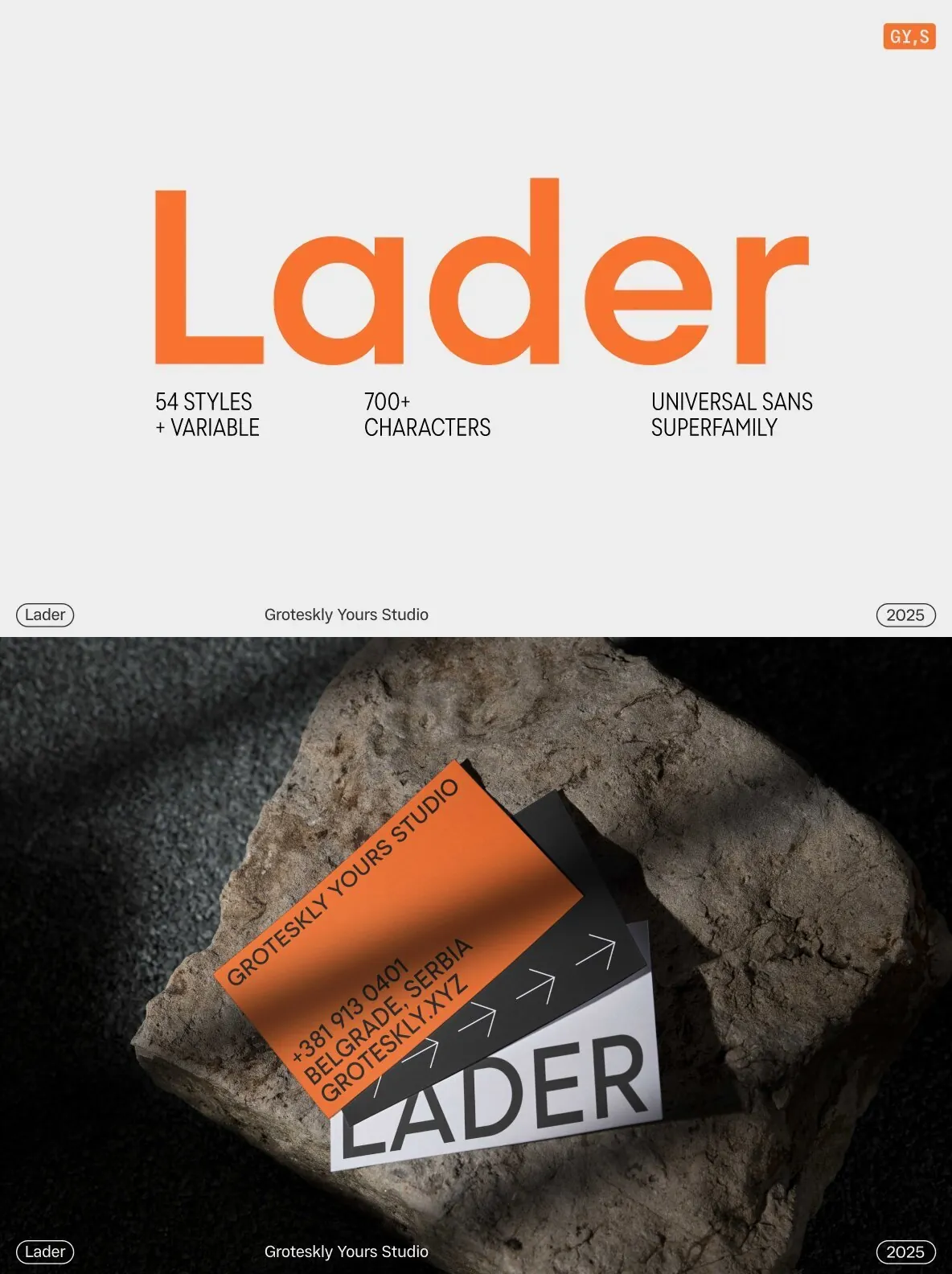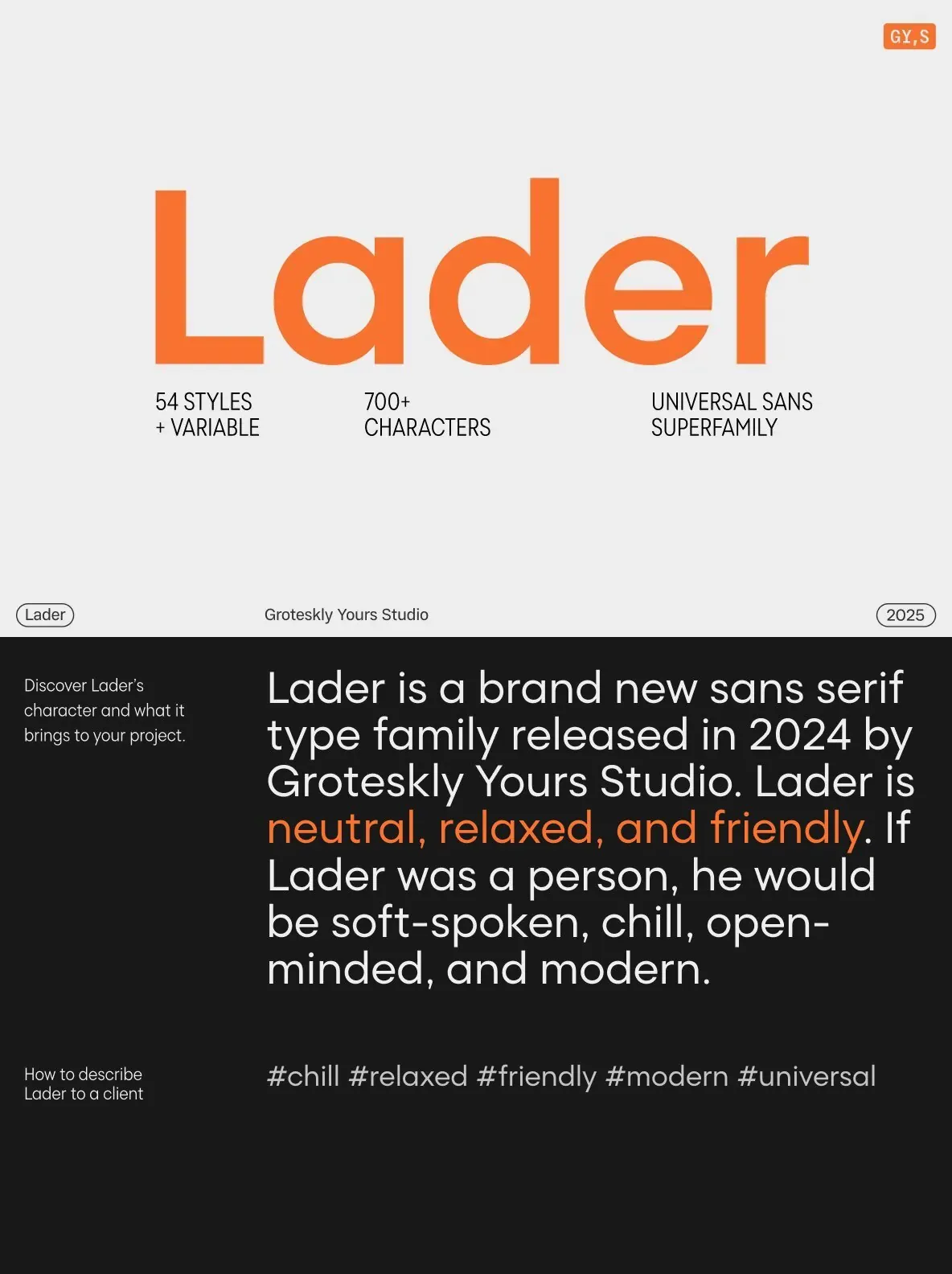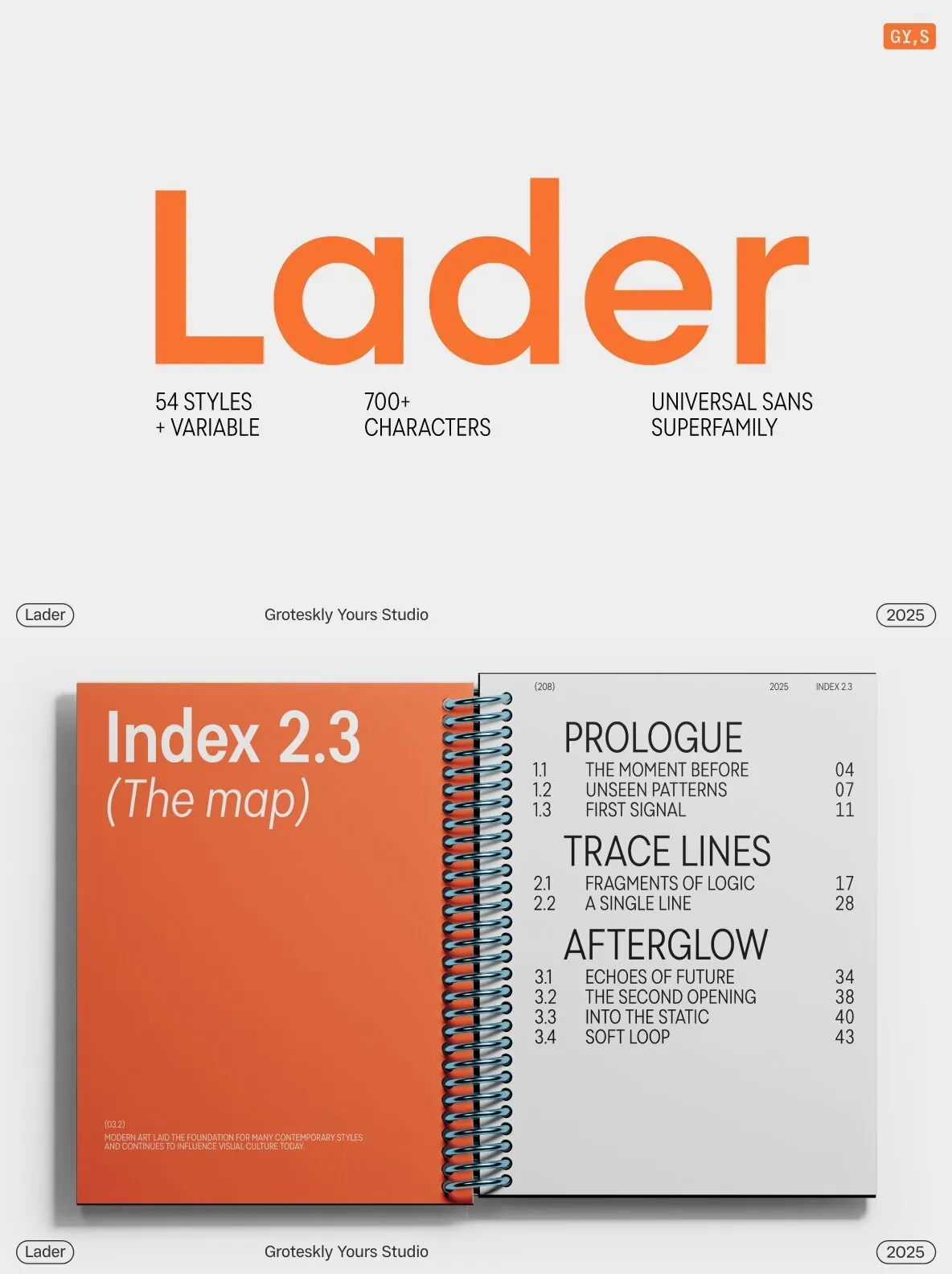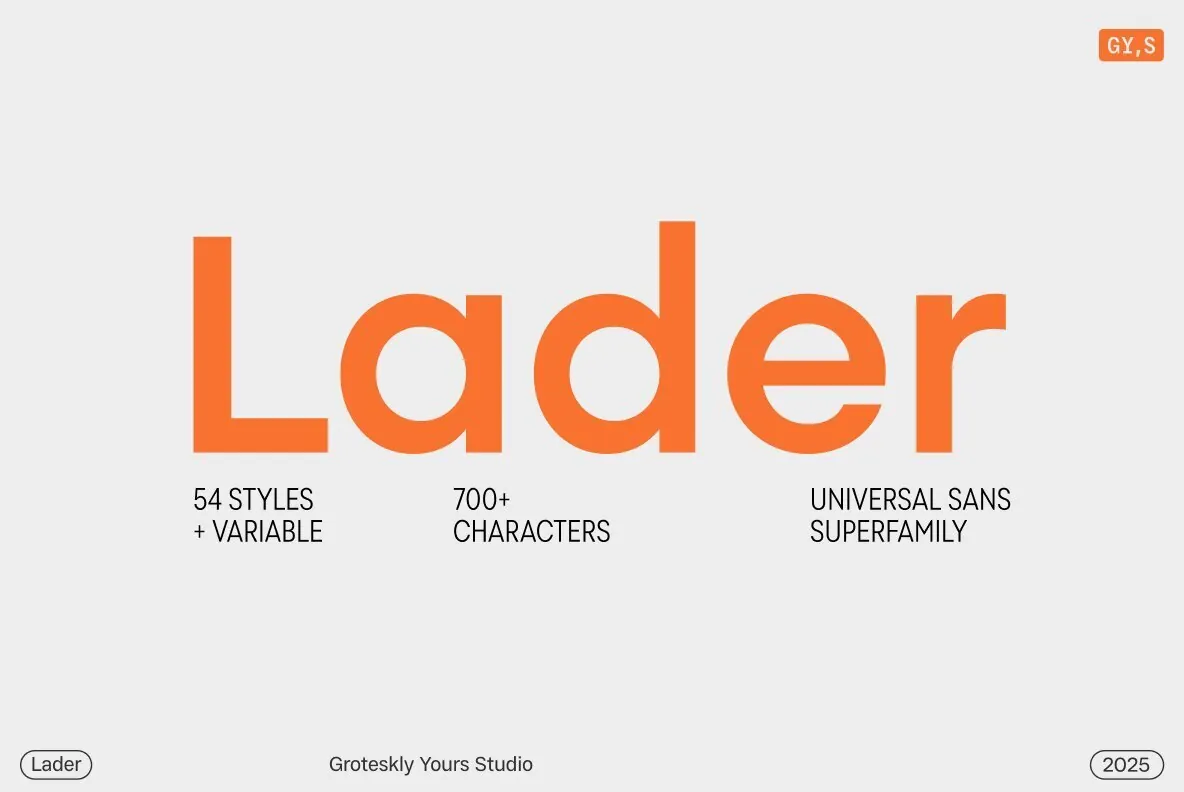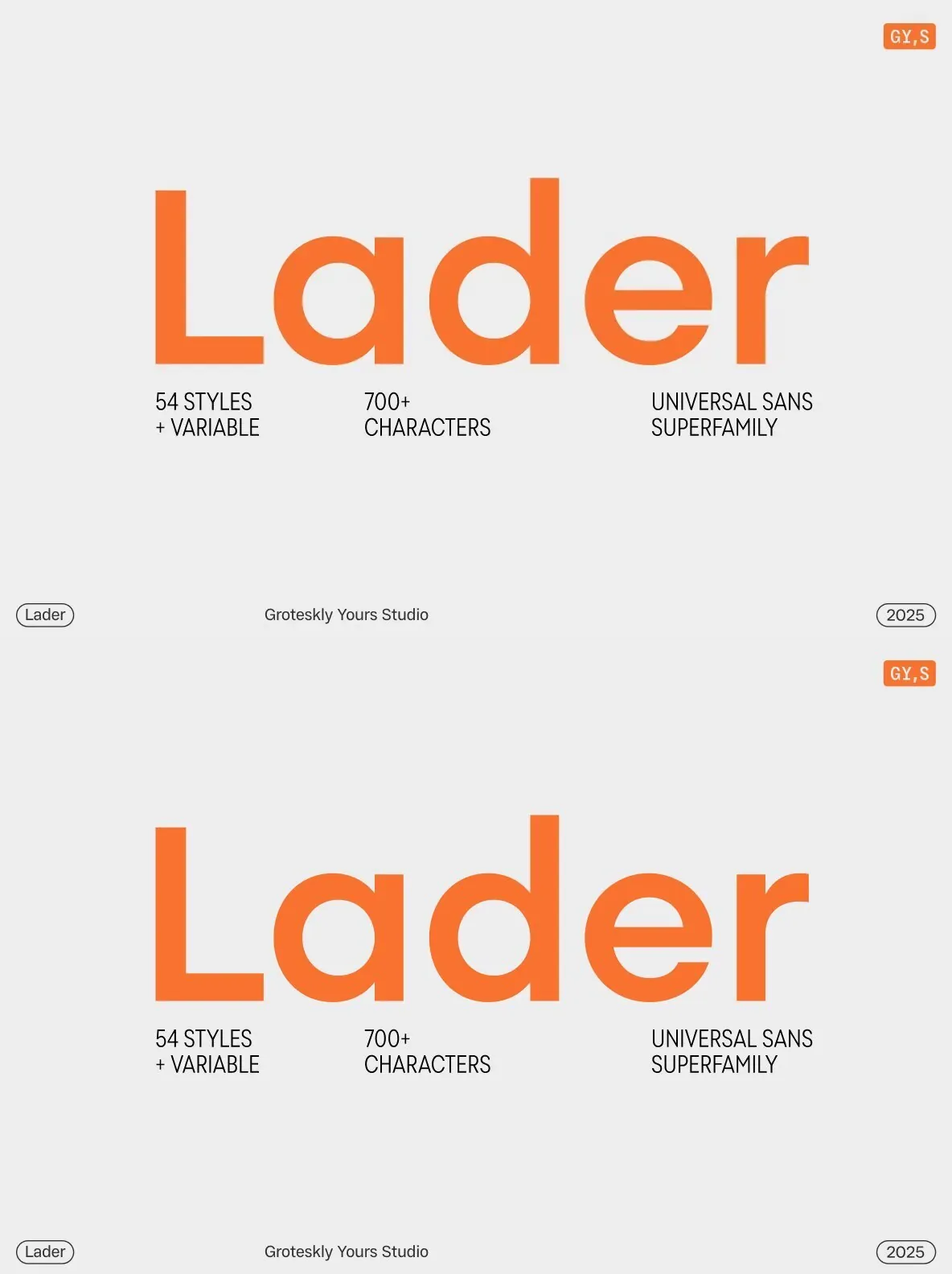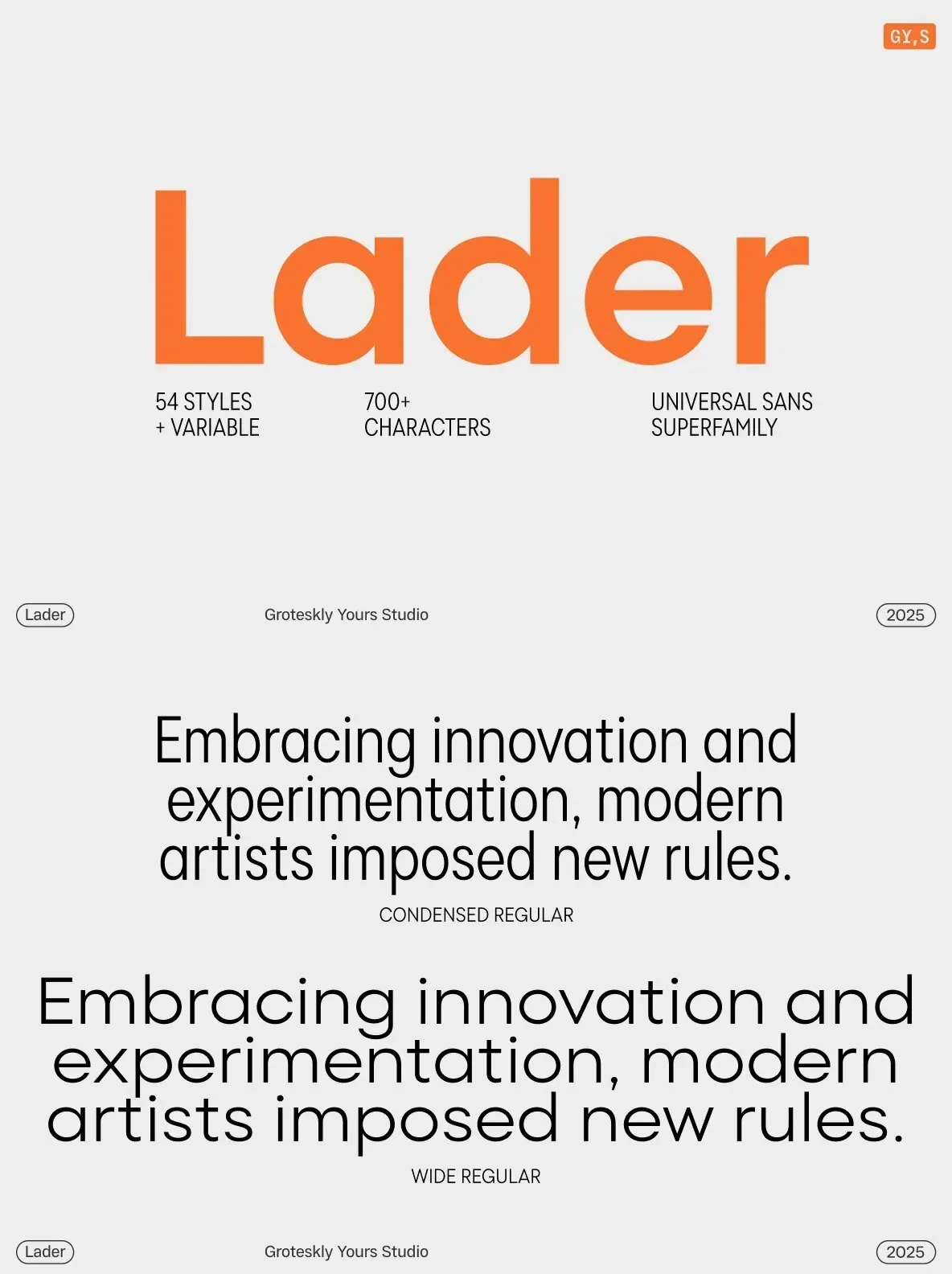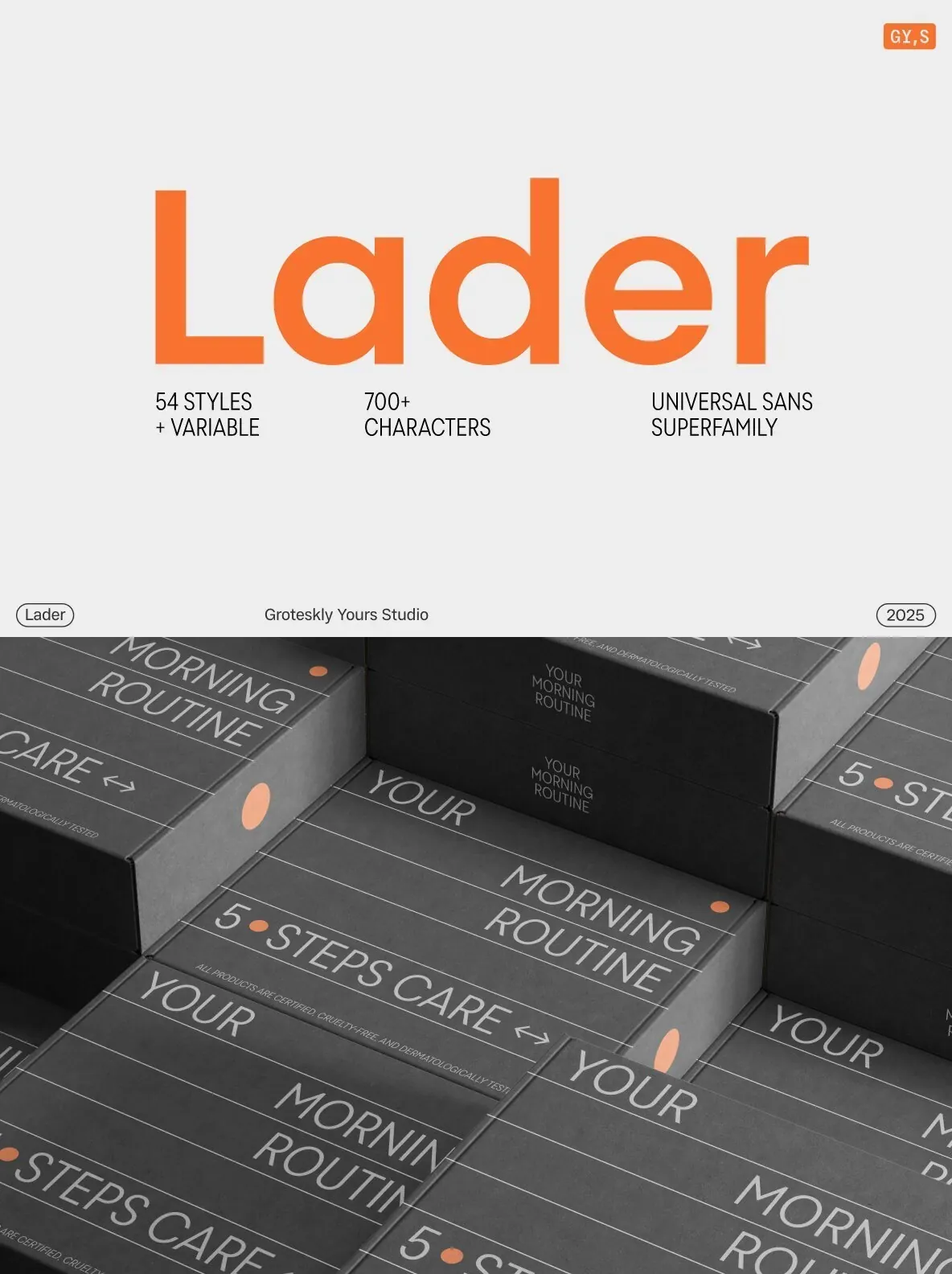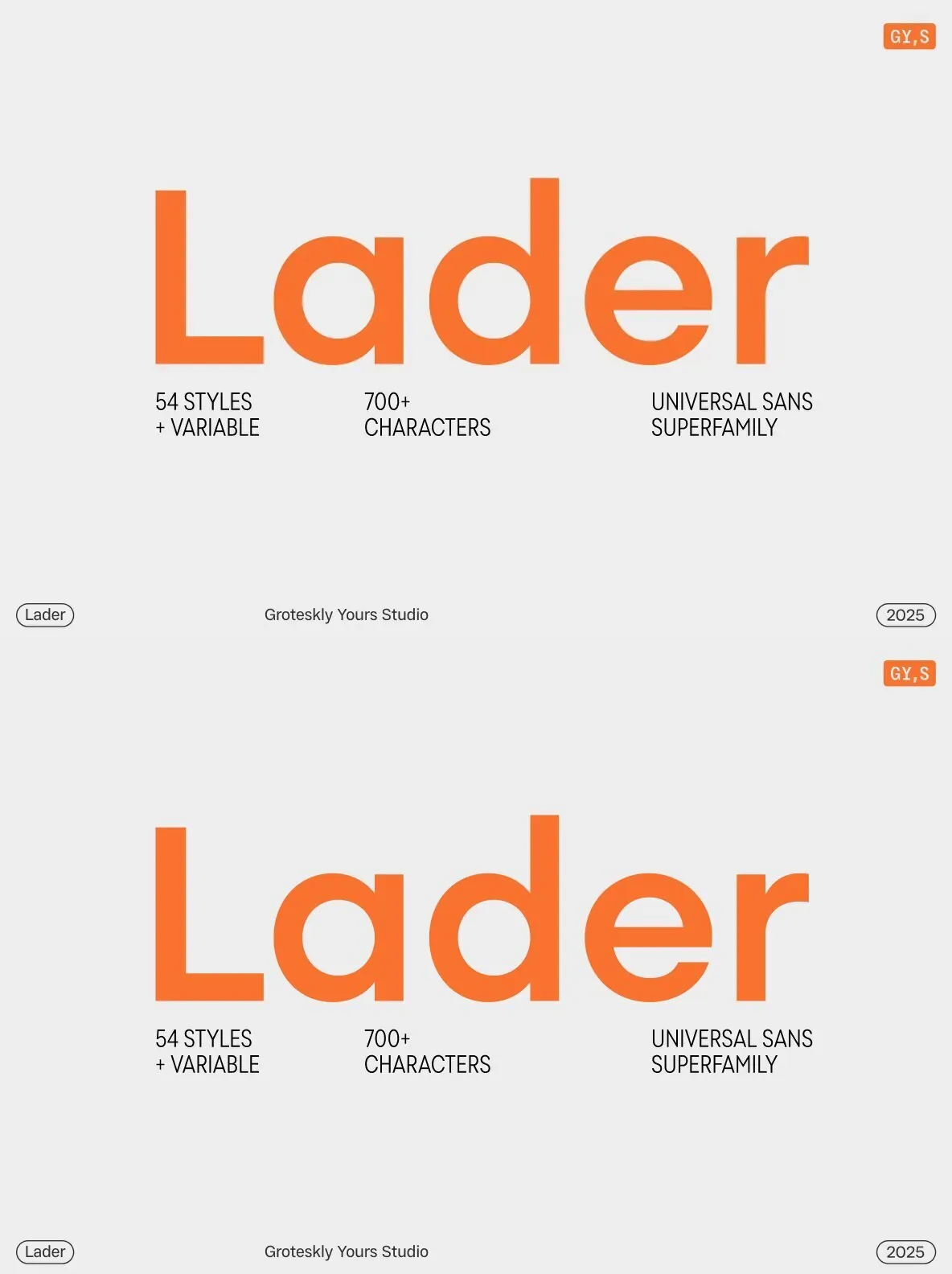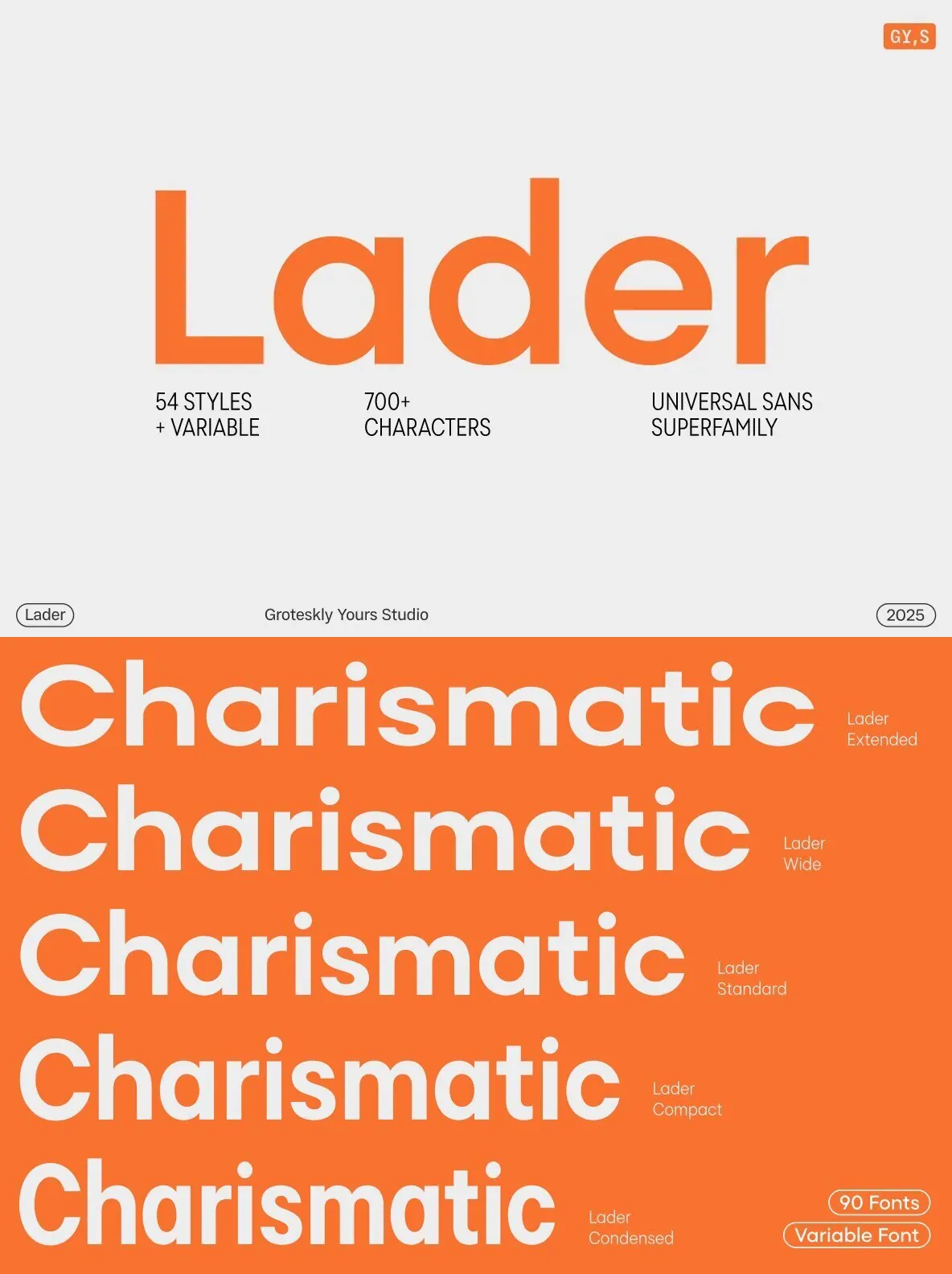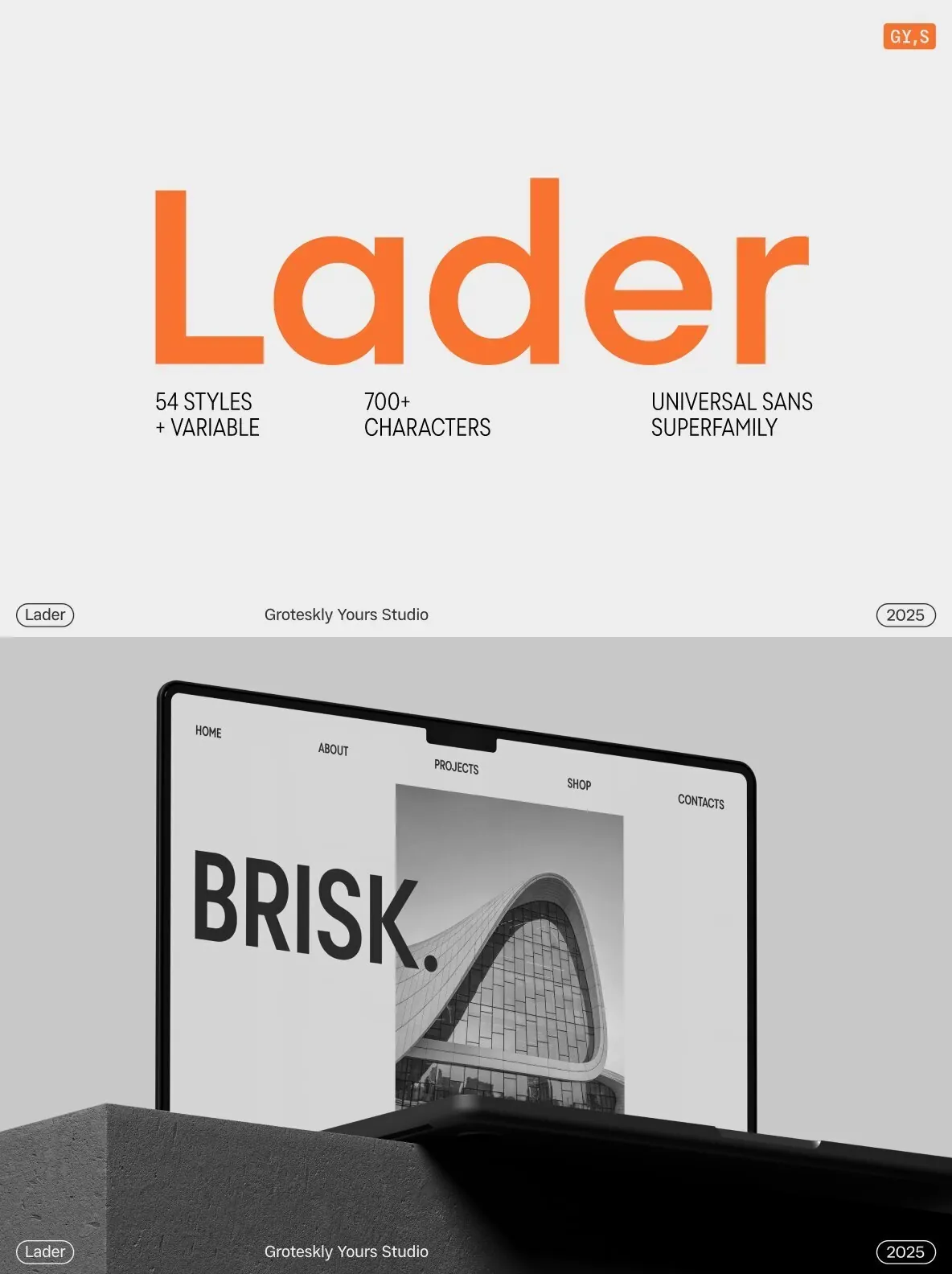
Lader — Quiet Geometry, Built to Read
Lader is a geometric sans serif type family designed for clarity, versatility, and contemporary design environments. With 90 styles across Condensed, Compact, Standard, Wide, and Expanded subfamilies—ranging from Thin to Black with matching italics—Lader offers a broad typographic palette for structured systems and everyday layouts.
Rooted in minimalist aesthetics, it balances precise geometric construction with soft, friendly shapes. Its tone stays quiet and neutral, which supports extended reading, while the subtle personality and wide stylistic range also hold up in display use. Lader fits naturally in web design, UI/UX, editorial layouts, and branding, and it prints cleanly for applications that move between digital environments and printed matter.
Lader includes a full suite of OpenType features, including Stylistic Alternates, Ligatures, Fractions, Subscripts, and Superscripts. With support for over 150 languages and Extended Latin coverage, it is ready for global typography without compromise.
Lader Type Family features
90 Fonts + 1 Variable Font
5 Subfamilies (Condensed to Expanded)
Extended Latin Support
15+ OpenType Features
Stylistic Alternates & Ligatures